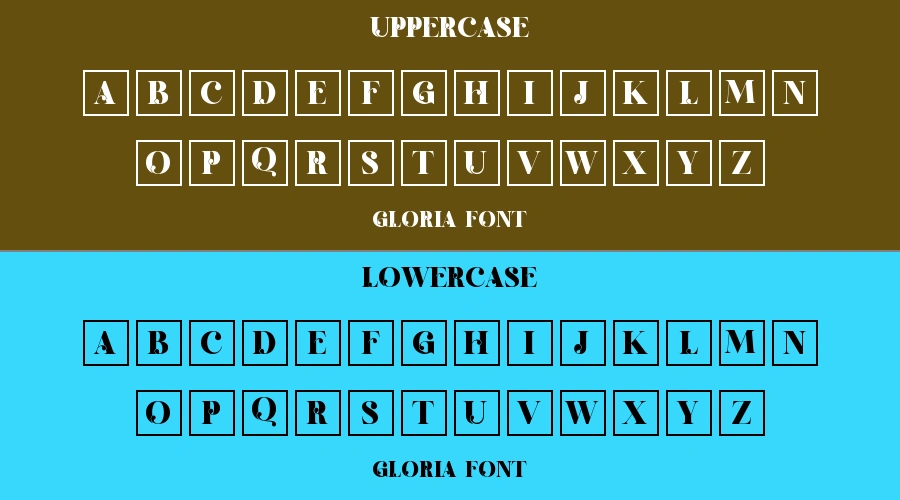
About Gloria Font
Gloria Font embodies typographic excellence through its masterful combination of original character and authenticity. Created for technical documentation, this typeface delivers exceptional longevity and creative impact across all applications. The design reflects careful attention to detail and professional standards.
Advanced capabilities include distinctive rounded apexes and versatile terminal characters, giving designers creative control. When used in sidebars, Gloria Font exhibits remarkable numerical alignment. The harmonious balance between joint construction and brand personality sets this typeface apart.